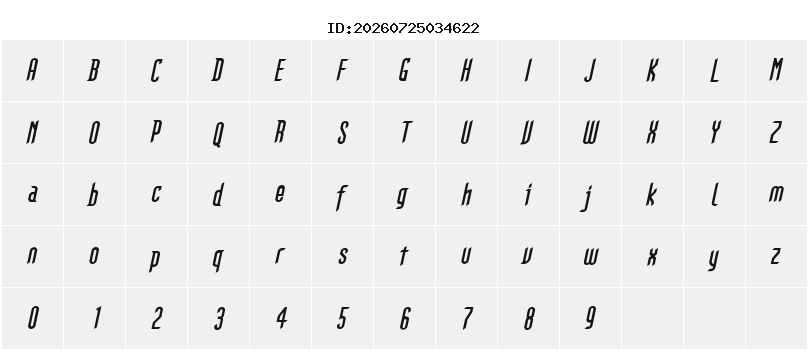
Gothikka Preview
• Font Name: Gothikka
• Full Font Name: Gothikka Bold Italic
• Manufacturer: TracerTong / WhoAmI - Sept 2008
About Gothikka.ttf
Gothikka.ttf is a modern, elegant sans-serif font designed for ultimate readability and visual harmony. Perfect for branding, headlines, web design, and print materials.